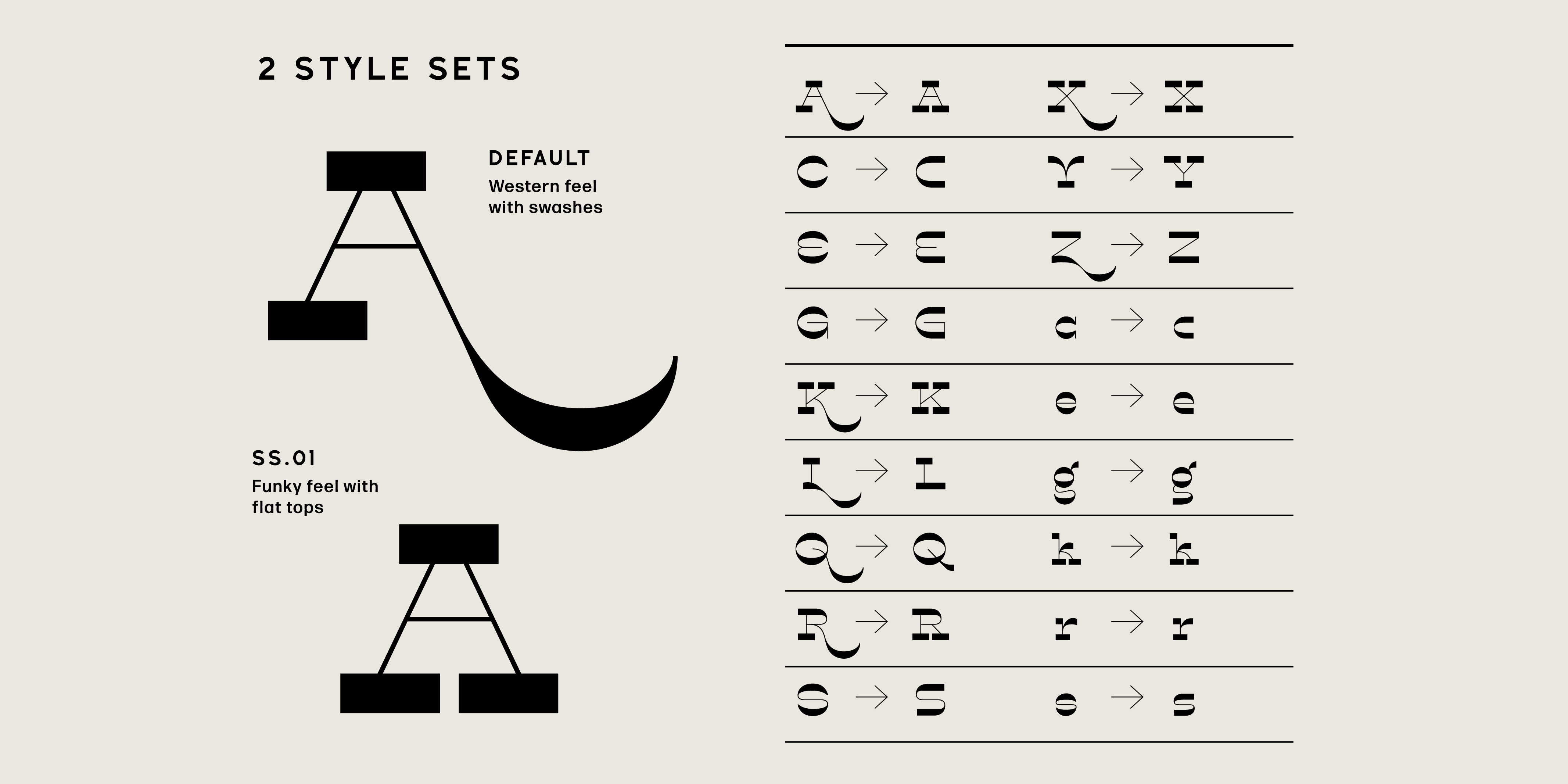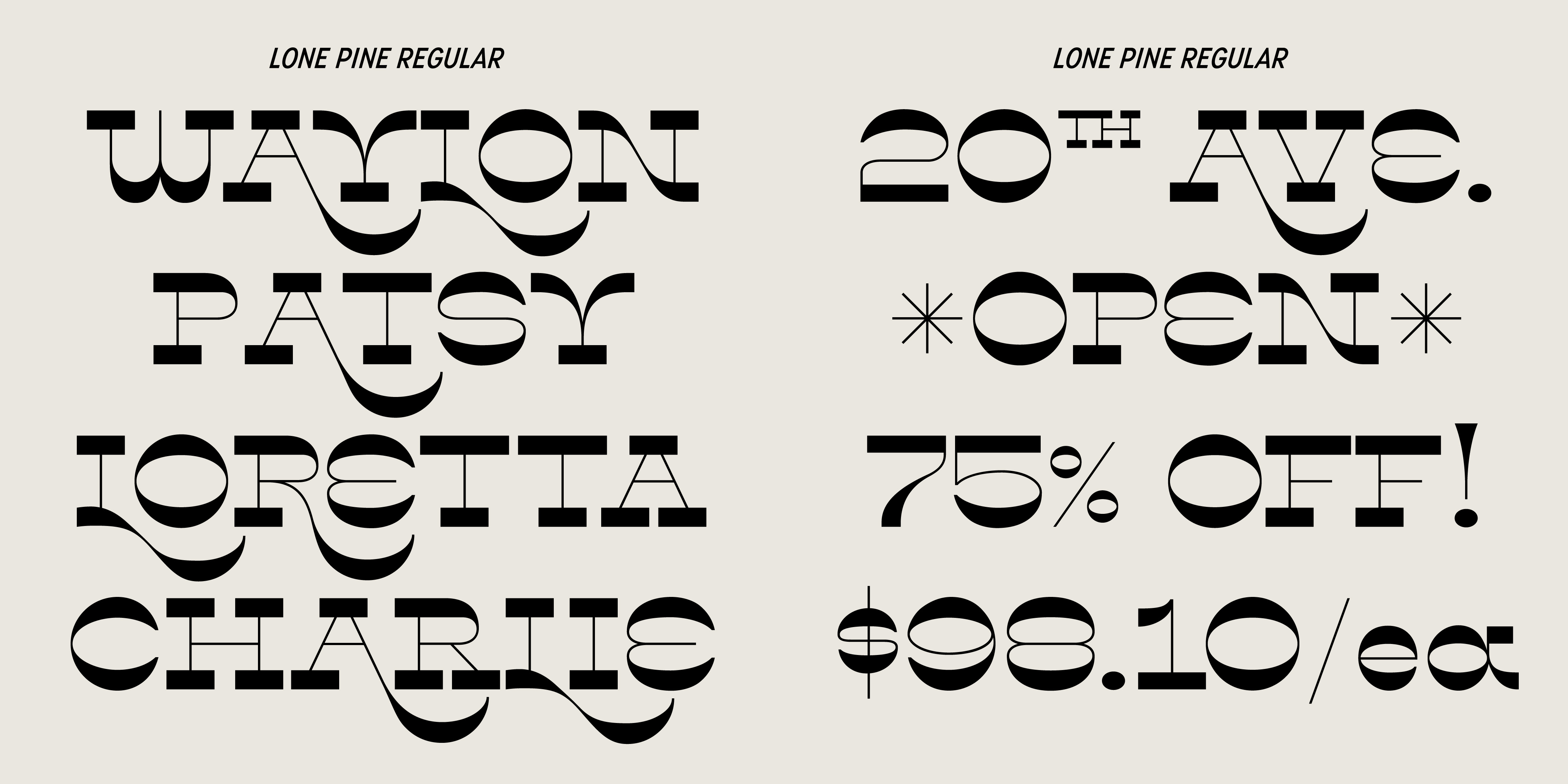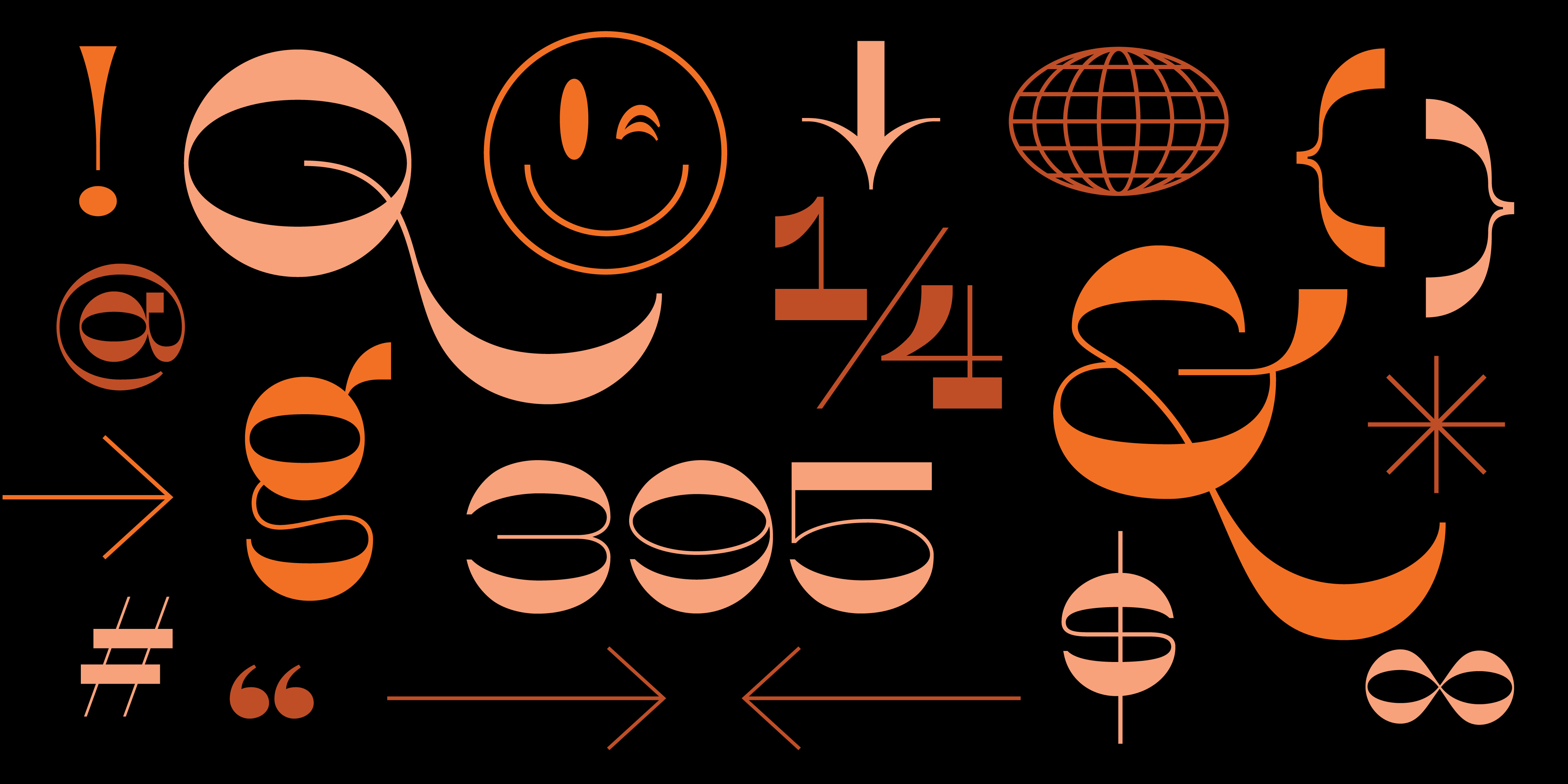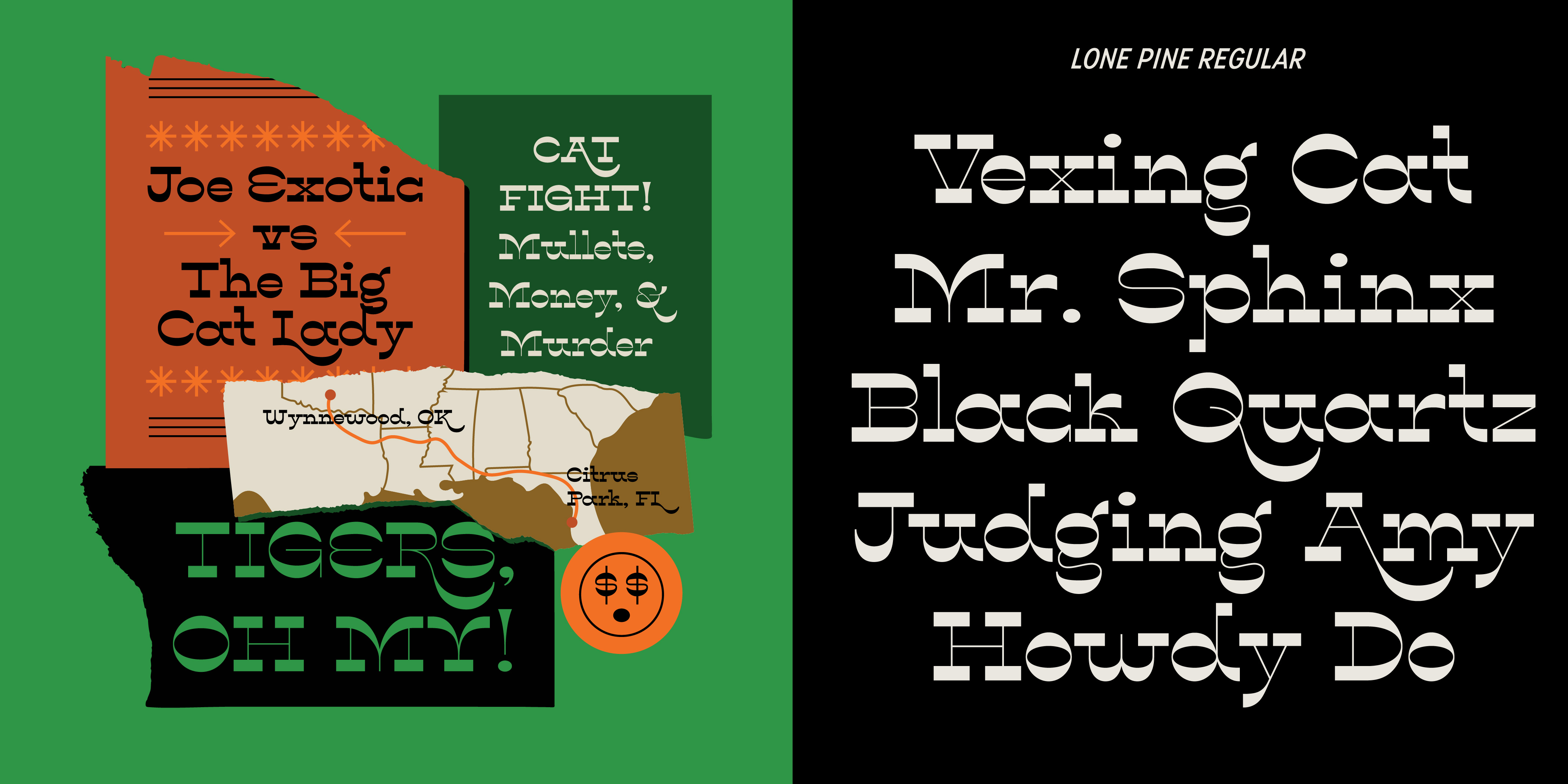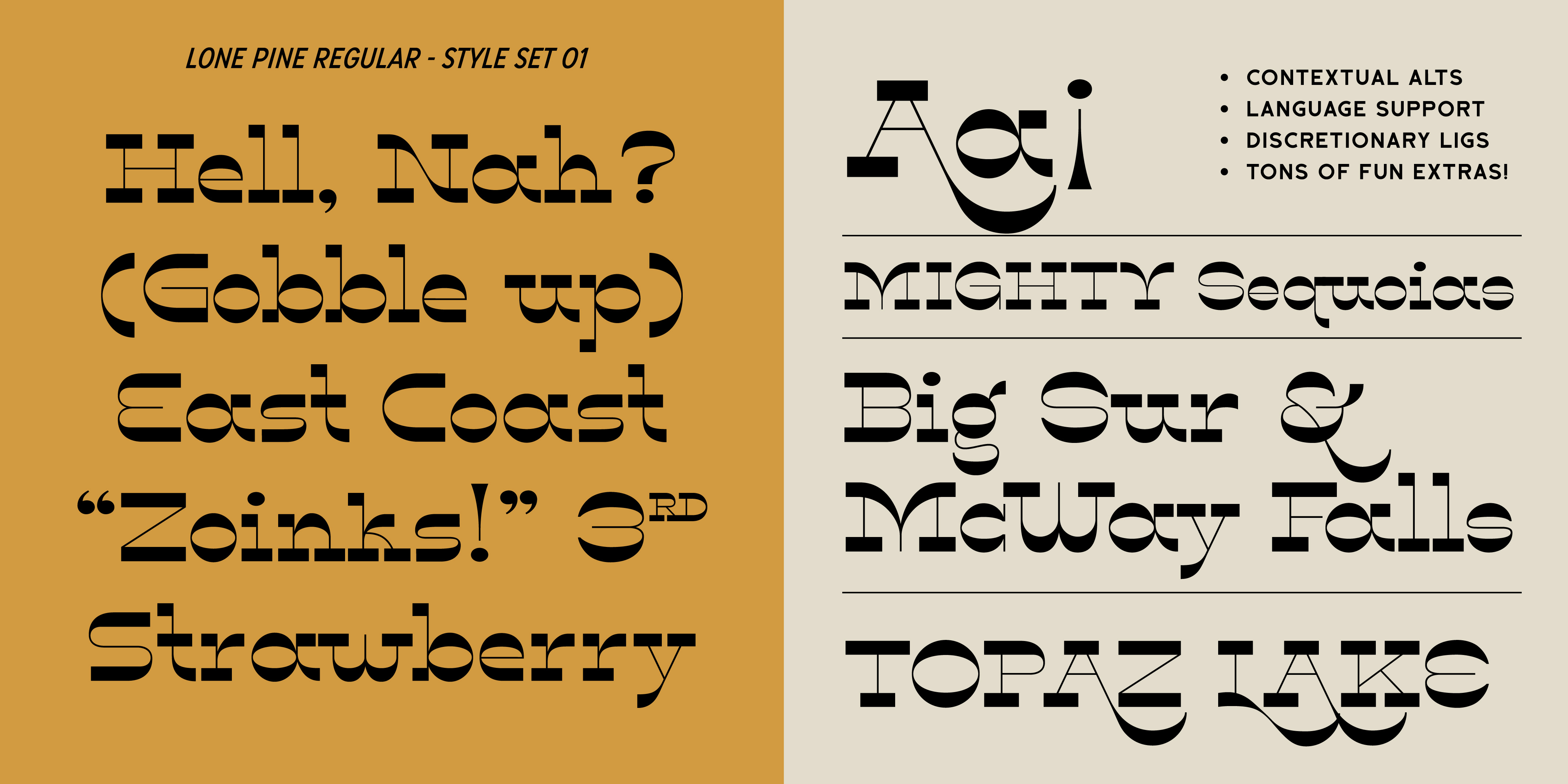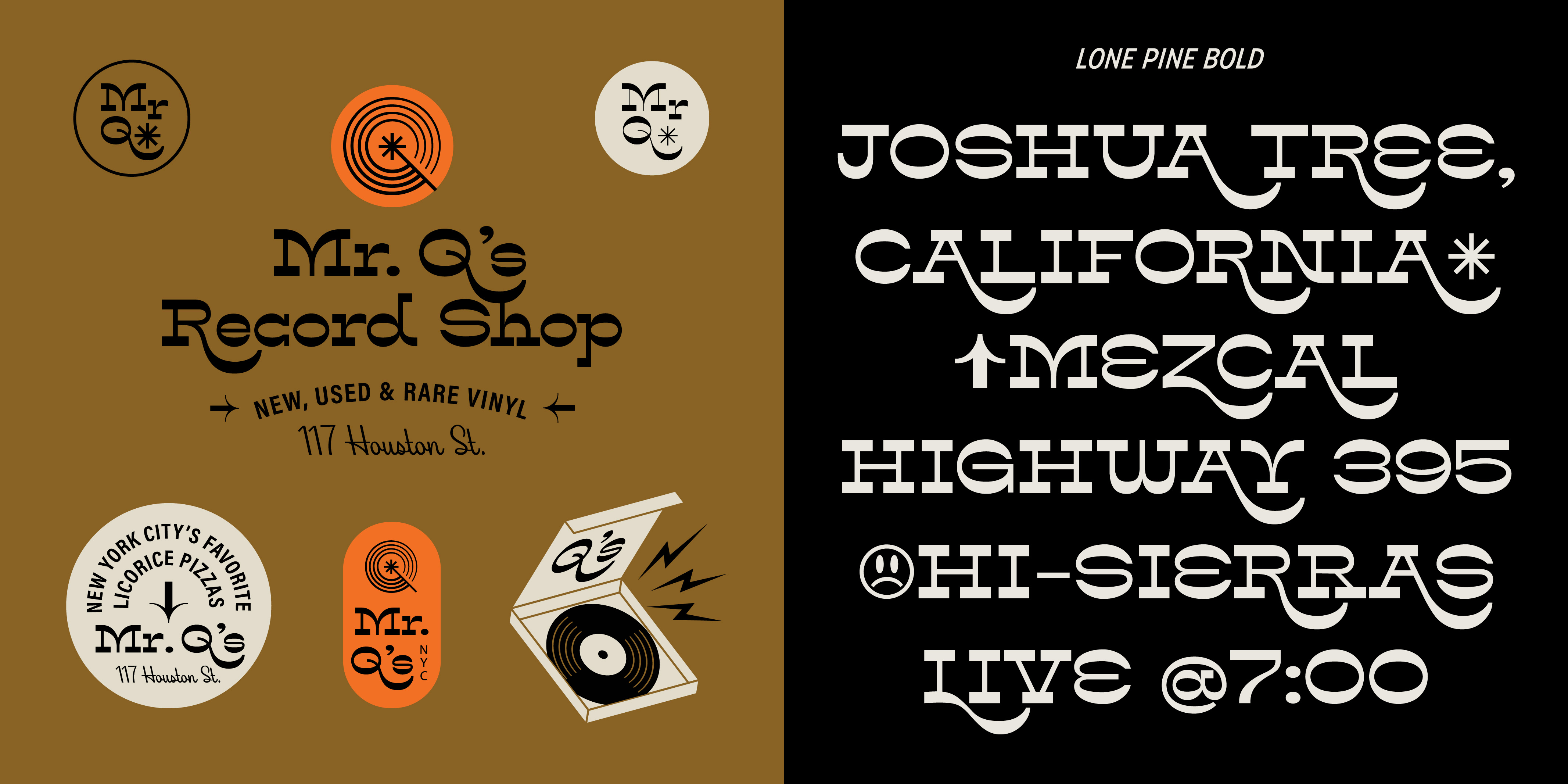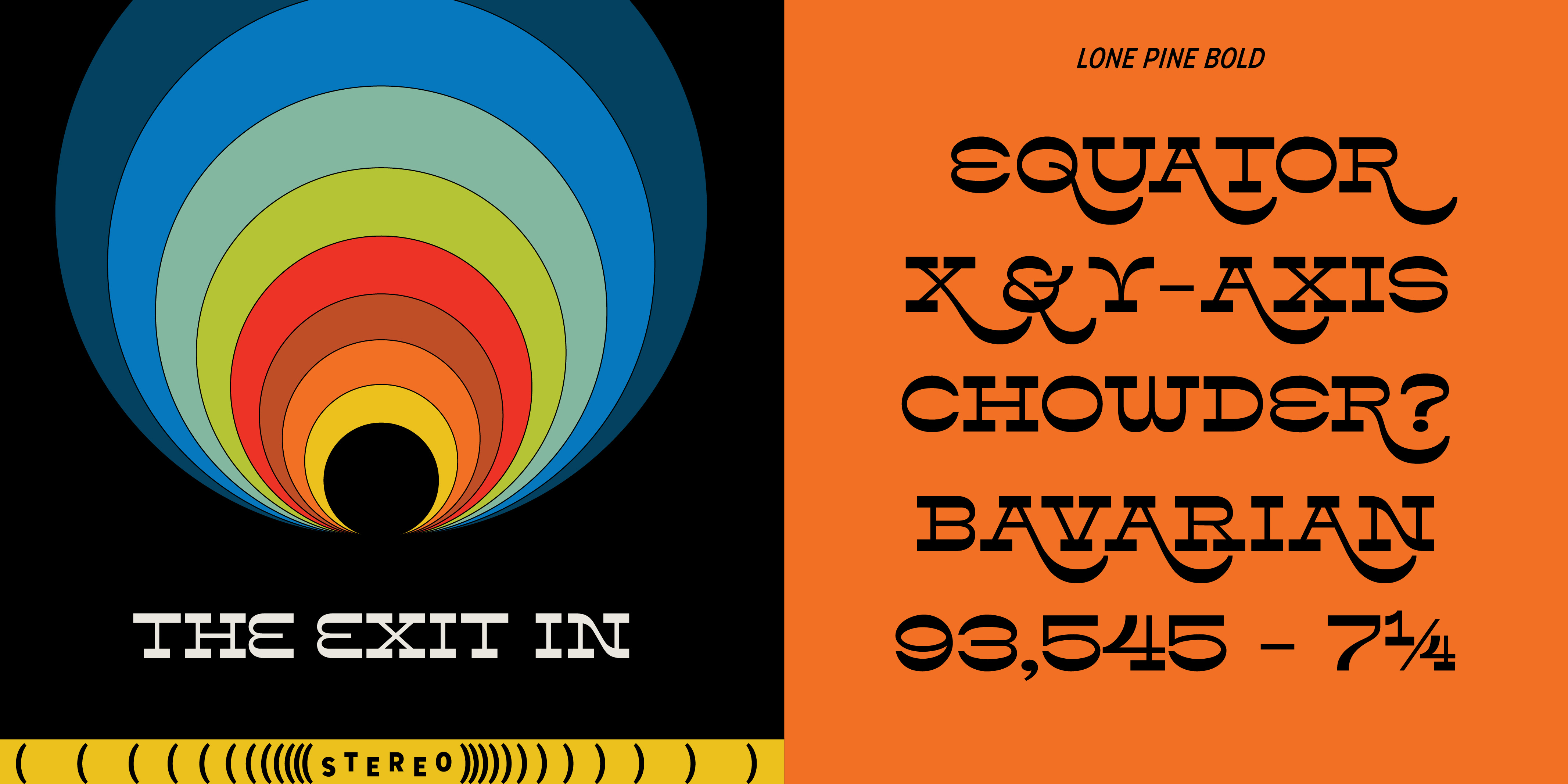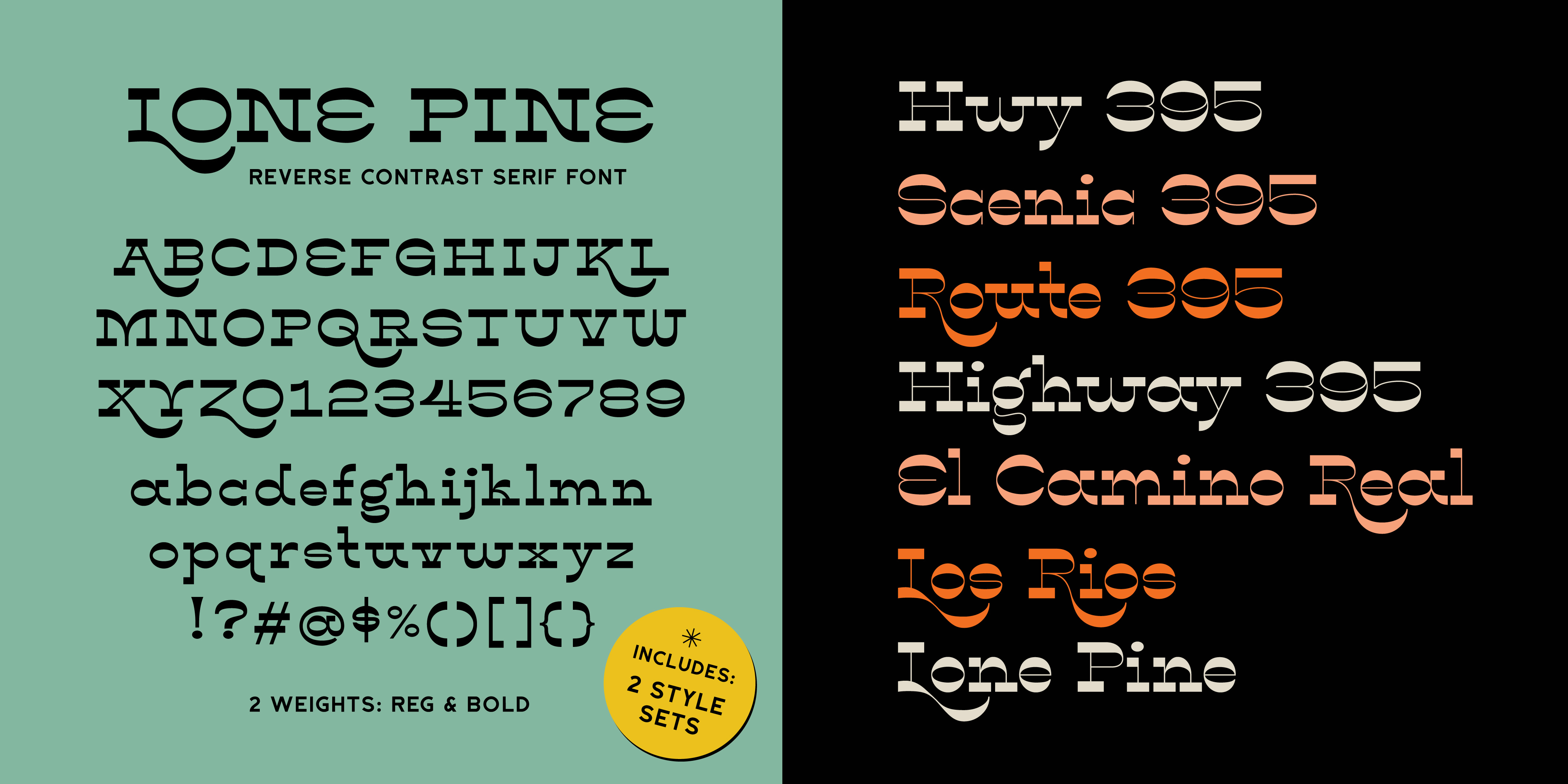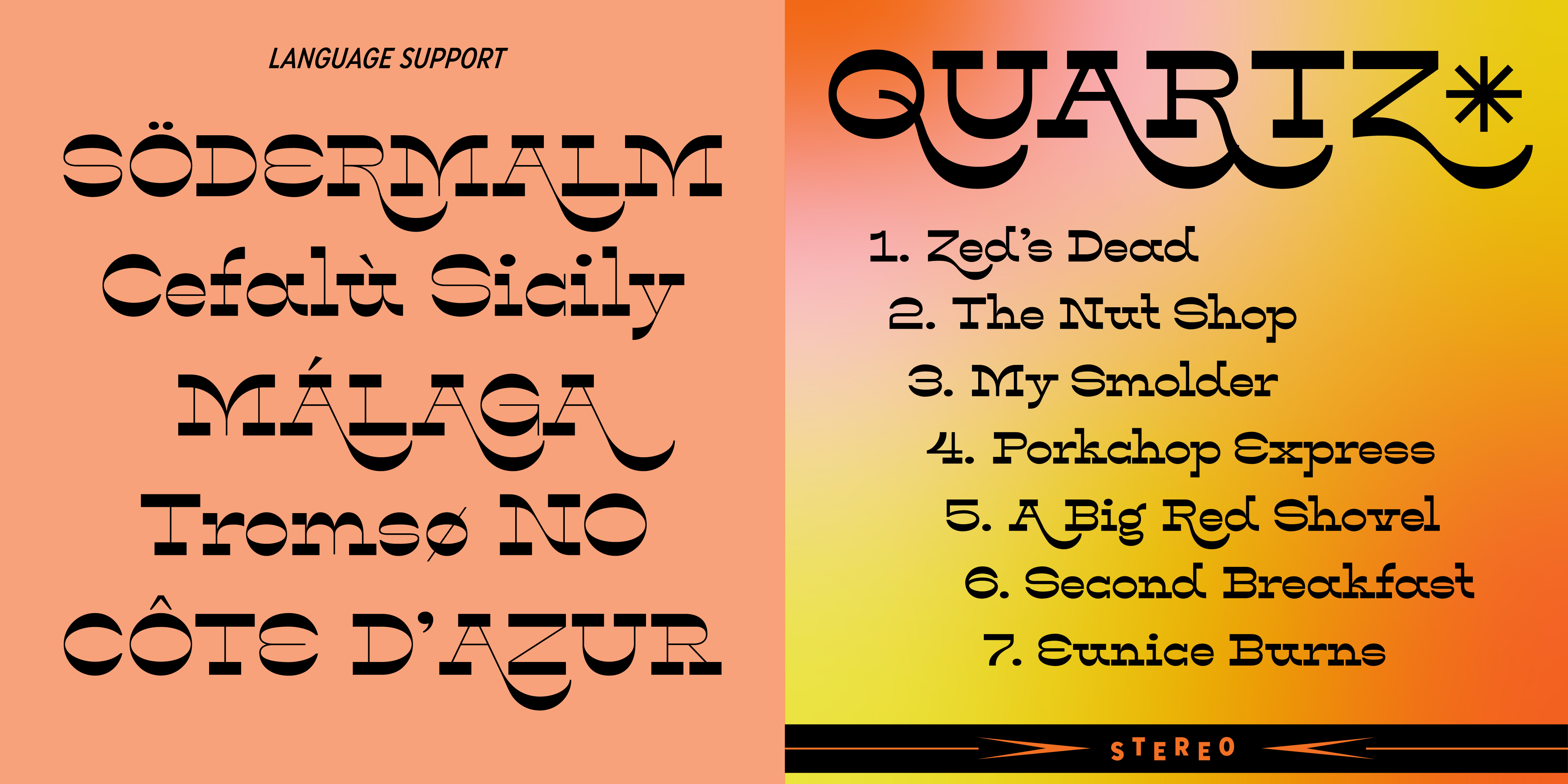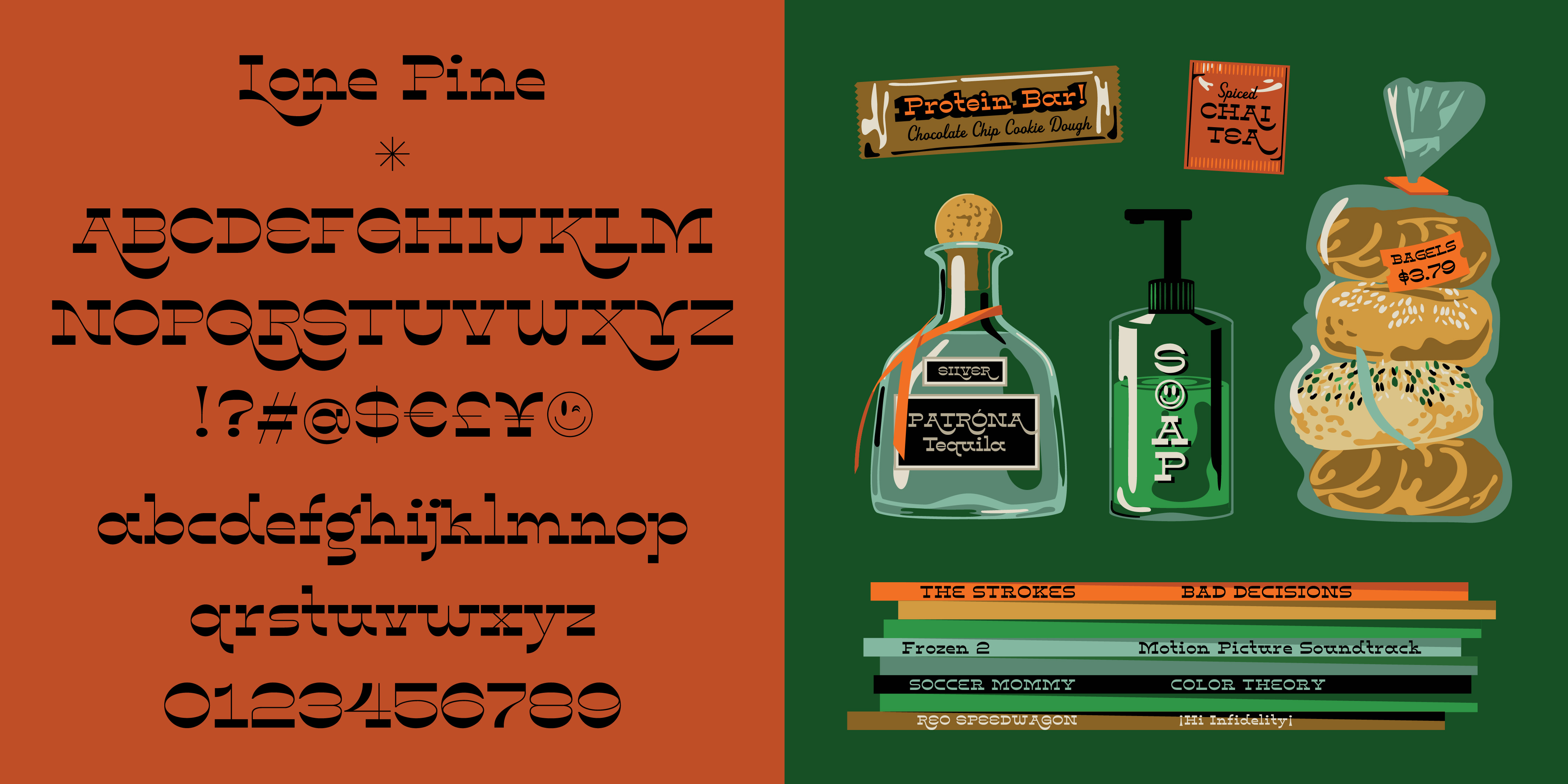
Lone Pine
Serif
A playful reverse and high contrast slab serif.
Lone Pine font by Hoodzpah is a reverse contrast serif typeface with 110% zazz and juuj. It’s inspired by Route 395 in California, which runs along the Eastern Sierra Nevadas; And by the many towns scattered along the way, namely Lone Pine, CA at the base of Mt. Whitney. This display font is super high contrast, and features big swashes for immediate wow factor. Turn on style set 01 for a more 70’s sci-fi look.